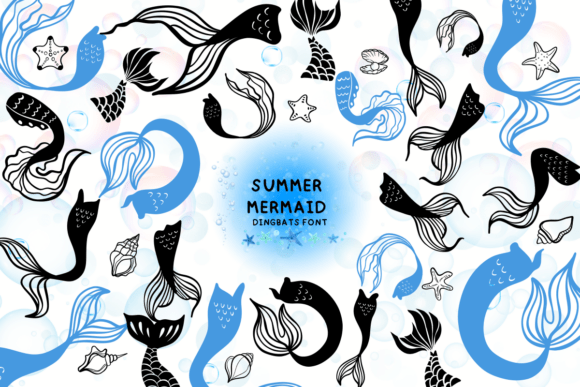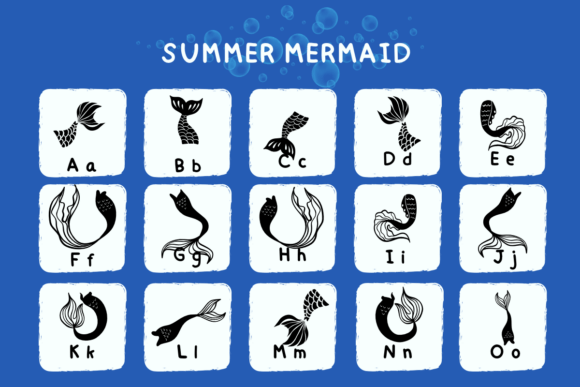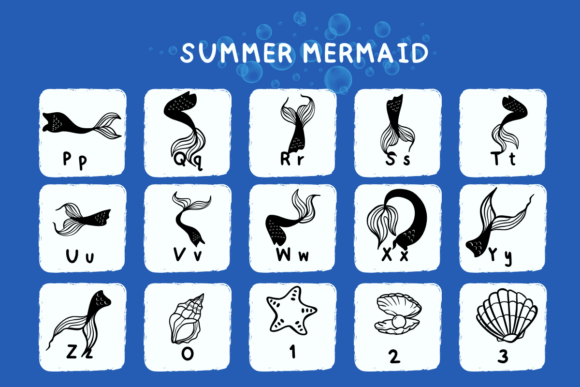
Summer Mermaid Font
About the Summer Mermaid Font
Discover the charm of Summer Mermaid Font. This font is a perfect blend of modern aesthetics and classic appeal. Summer Mermaid is a dingbats font with an aquatic theme. This font can enhance your creative projects such as wedding invitations, DIY, crafts, decorations, logos, and many other creative ideas.
Summer Mermaid Font Usage Examples
Summer Mermaid Font Example